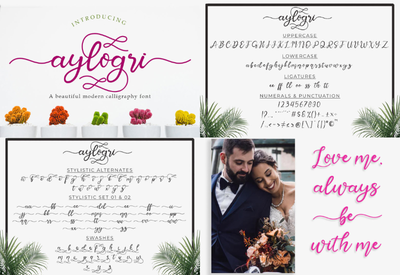
Make your designs glamourous and edit in style with the Best Seller Calligraphy Font Bundle!
The 18 unique fonts in this bundle are made for someone who loves lovely calligraphy typefaces with numerous stunning alternates, ligatures, swatches. etc
- 18 Bestselling Calligraphy inspired fonts
- All fonts include Swashes, Stylistic Sets, Stylistic Alternates, Ligatures. etc
- Perfect for social media promotions, titles, signatures, logos, wedding invitations, t-shirts, letterheads, signboards, labels, bulletins, posters, badges, and more!
- Multilingual support on various fonts
Font's Included In This Bundle:
- Nurul Script Font
- Aylogri Font
- Mugelova Font
- Falling Leman Font
- Valentinoa Font
- Signalove Font
- Window Font
- Namira Font
- Hallo Carthy Font
- Winstonia Font
- Bedford Font
- Heart Attack Font
- Mattahary Font
- Ashburton Font
- Nattasha Font
- Angestina Font
- Chirstmas And Santona Font
- Winter Love Font